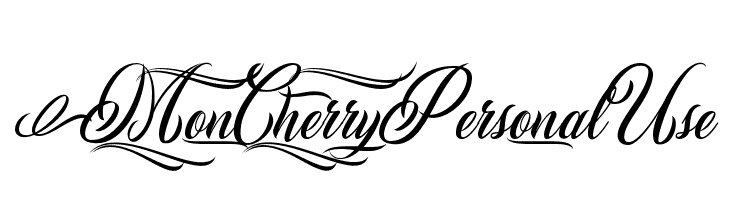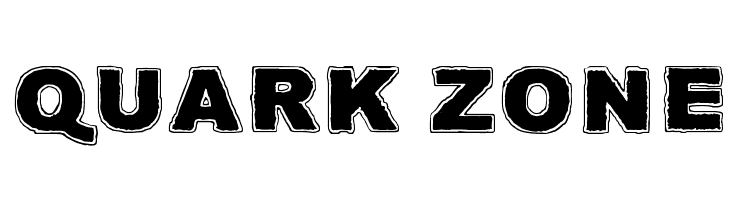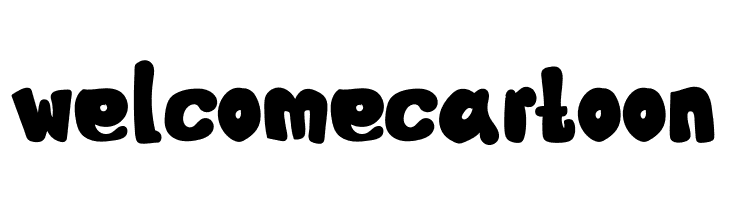
( Billy Argel - billyargel.com/ )
An elegant and flowing script font with intricate, decorative letterforms.
( SDFonts. http://www.angelfire.com/scifi2/sdfonts/index.html )
An artistic serif font with sharp, angular serifs and a hand-crafted appearance.
( Reisen )
A modern serif font with Greek-inspired letterforms and elegant styling.
( Fonts by Iconian Fonts - Daniel Zadorozny )
Bold, geometric font with a shadow effect and italic style.
( Fonts by Danilo Miguel )
A music-themed decorative font with elements of musical notation.
A bold, italic sans-serif font with a dynamic and modern style.
( Fonts by Des Gomez )
A playful, handwritten font with rounded edges and whimsical heart motifs.
A bold, geometric font with rounded edges and a futuristic style.
A bold, playful font with a hand-drawn, artistic style.
( Fonts by Alit Design )
A playful, bold font with a bubbly, hand-drawn appearance.